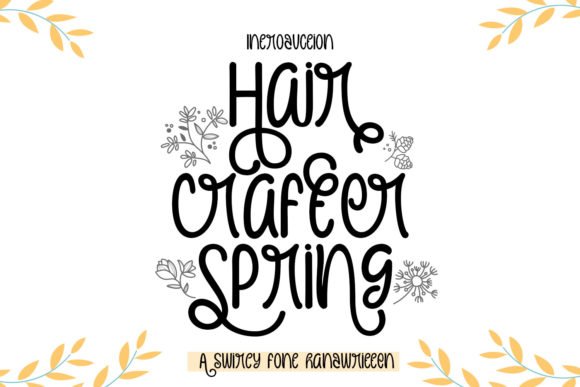
Have you ever sat at your desk, staring at a blank page, wondering what font will bring your design to life? The struggle is real, but today we’re excited to introduce you to a game-changer: the Hair Crafter Spring Font. This swirly and cute handwritten font is the perfect addition to any project, from invitations to social media graphics.
As a designer, you’re always on the lookout for fonts that add a personal touch to your creations. That’s where the Hair Crafter Spring Font comes in – its trendy and stylish vibe is sure to elevate your designs and make them stand out. With its PUA encoding, you’ll have access to all the glyphs and swashes you need to create truly unique and eye-catching designs.
Hair Crafter Spring Font Key Features
- Font Family: Hair Crafter Spring Font is a unique, hand-drawn font designed for creative and artistic purposes.
- Unique Characteristics: Hair Crafter Spring Font features intricate, hand-drawn details, making it ideal for creative projects, such as invitations, posters, and digital art.
Hair Crafter Spring Font Review
First off, I have to say that I’m a big fan of the Hair Crafter Spring Font ✨. The playful, whimsical feel it gives to any text is just what I was looking for. The ligatures and flourishes add a touch of elegance that’s hard to find in other fonts. Plus, it’s incredibly versatile and can be used for anything from wedding invitations to social media graphics.
Another thing that I appreciate about this font is its wide range of weights ✨. From the lightest to the boldest, there’s a version to suit every style. This makes it perfect for creating visually appealing text-based graphics and designs.
- ⚠️ Some characters, like the lowercase ‘a’, can be difficult to read at small sizes. This is a minor issue, but it’s worth noting.
- ⚠️ The font can be a bit heavy-handed with the ligatures, which can make some text look cluttered if not used carefully.
Overall, I’m really impressed with the Hair Crafter Spring Font. It’s a great choice for anyone looking to add a touch of whimsy and elegance to their designs. Just be mindful of the limitations mentioned above, and you’ll be golden!
Getting the Most Out of the Font
To get the most out of the Hair Crafter Spring Font, try combining it with other decorative fonts or using it in conjunction with bold or italic styles. You can also experiment with different font sizes and colors to create a unique and eye-catching design.
The Hair Crafter Spring Font is ideal for use in:
- Beauty and fashion-related designs
- Spring-themed or Easter-related designs
- Whimsical or playful designs